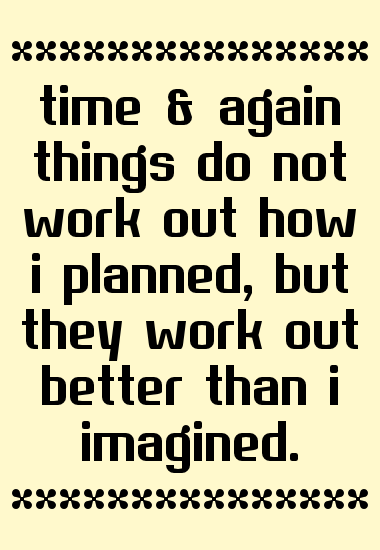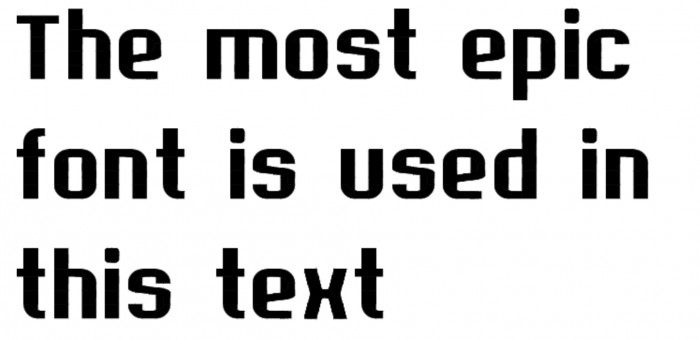
Works well. I fully agree with sentiment expressed in the middle sample :)
Excellent work on the curve-meets-diagonal.
An animated gif showing some of the architecture...
Great font! How did you get those half curve things that are detailed in your gif?
@Cohnisgone Thank you! I don't have time right now to explain the curves, but I will try to put together a little tutorial later.
It is always a pleasure to see how you design your fonts - with much delicacy and beautiful details.
Wow! Awesome
Literally i havent seen anything better
9/10 :D
Very nice